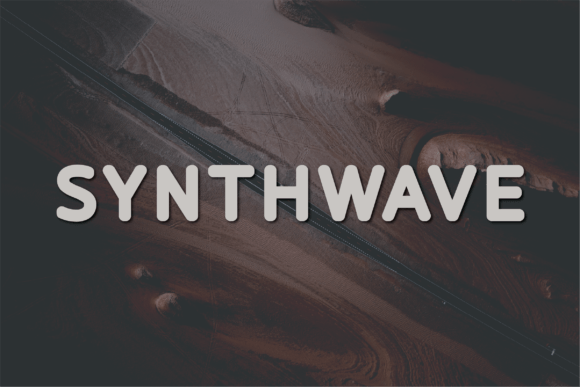
Welcome to the realm of captivating fonts, where creativity knows no bounds and self-expression takes center stage. Let us introduce you to Synthwave Font, the vibrant and alluring sans serif font that will transport your designs to a new dimension of elegance and sophistication.
Picture a font that blends the vibrancy of the future with the timeless charm of classicism. Synthwave Font is a fusion of the old and the new, a symphony of style that complements both modern and vintage aesthetics. Its smooth, flowing lines and sharp, geometric edges create a visual harmony that will captivate your audience, leaving them spellbound by your creations.
As a sans serif font, Synthwave possesses a clean, minimalist aesthetic that ensures readability and clarity. Its letterforms are meticulously crafted and designed to provide effortless readability, even in small sizes. Whether you are crafting logos, designing wedding invitations, or creating eye-catching advertisements, Synthwave will effortlessly command attention and communicate your message with impact.
Step into the Synthwave universe and discover a myriad of possibilities. From logos that exude boldness and professionalism to wedding invitations that radiate romance and elegance, this font will infuse your designs with a touch of exclusivity and sophistication. Its versatility shines in print, magazines, and branding materials, transforming ordinary text into captivating statements that leave a lasting impression.
If you seek a font that sparks creativity and ignites the imagination, look no further than Synthwave. Let your designs take flight with this font, and witness how it effortlessly elevates your projects, leaving your audience awe-inspired. Embrace the beauty of Synthwave and unlock a world of limitless creative potential.